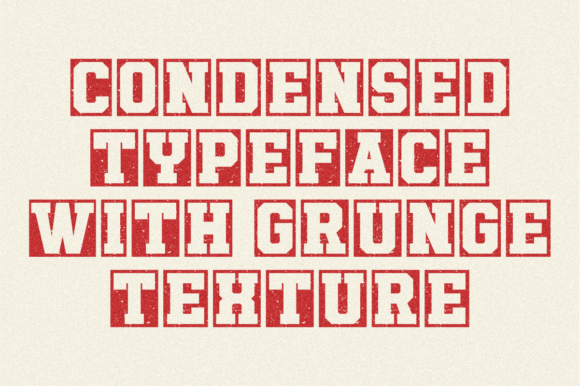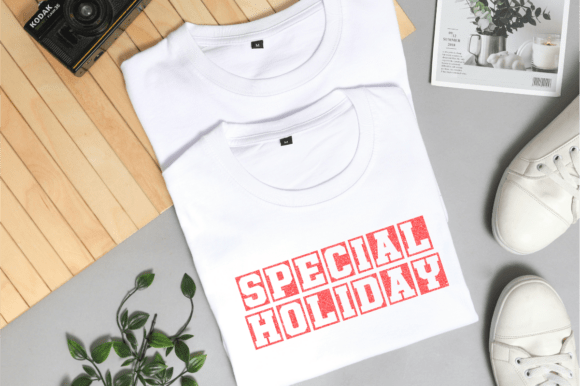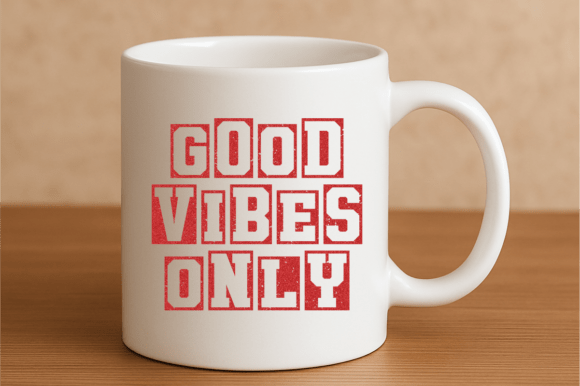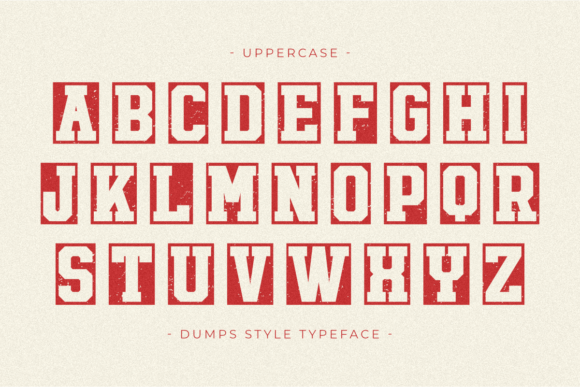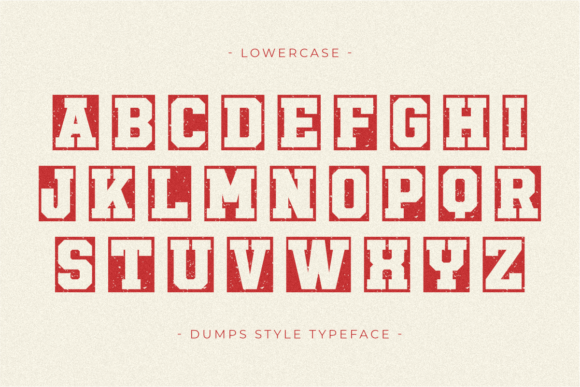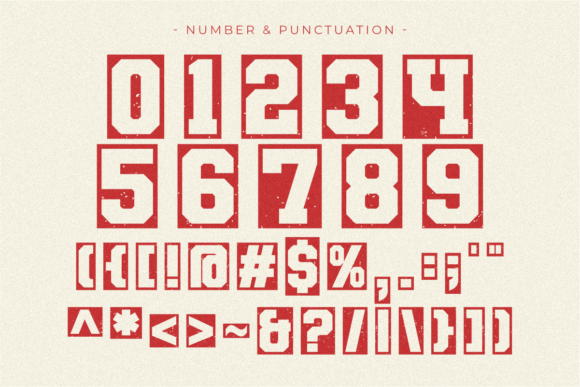
Unleash the Power of Dumps Style Font: A Commanding and Rugged Decorative Slab Serif
In the world of typography, fonts play a crucial role in conveying the tone and personality of a brand or design. For designers and crafters looking to make a bold statement, Dumps Style Font is an exceptional choice. This commanding and rugged decorative slab serif font is specifically designed for maximum visual impact, making it perfect for a variety of applications, from vintage sports branding to high-energy headlines.
The Distinct Characteristics of Dumps Style Font
Dumps Style Font boasts a heavy, blocky all-caps structure that exudes confidence and strength. Its distinct, distressed, and gritty texture adds a layer of depth and authenticity, reminiscent of retro designs from the past. The font’s bold typeface is carefully crafted to deliver an authentic, old-school aesthetic that demands attention and provides a powerful, fearless presence.
Ideal Applications for Dumps Style Font
So, what makes Dumps Style Font so versatile? Its unique characteristics make it an excellent choice for various design projects, including:
- Vintage sports branding: Create team logos, jerseys, and promotional materials that evoke the spirit of classic sports teams.
- Collegiate-style apparel: Design eye-catching clothing and accessories for schools, universities, or sports teams.
- Retro posters: Add a touch of nostalgia to your posters, flyers, or brochures with Dumps Style Font’s retro charm.
- High-energy headlines: Make your headlines pop with Dumps Style Font’s bold, attention-grabbing presence.
- Urban streetwear: Incorporate Dumps Style Font into your streetwear designs for a bold, fearless look.
Why Choose Dumps Style Font?
With so many fonts available, what sets Dumps Style Font apart? Here are a few reasons why designers and crafters love this font:
- Maximum visual impact: Dumps Style Font is designed to grab attention and make a lasting impression.
- Authentic, old-school aesthetic: The font’s distressed texture and bold structure evoke a sense of nostalgia and authenticity.
- Versatility: Use Dumps Style Font for a wide range of design projects, from sports branding to streetwear.
- Ease of use: The font is easy to read, even in large sizes, making it perfect for headlines and titles.
Tips for Using Dumps Style Font Effectively
To get the most out of Dumps Style Font, consider the following tips:
- Use it sparingly: Dumps Style Font is bold and attention-grabbing, so use it sparingly to avoid overwhelming your design.
- Pair it with contrasting fonts: Combine Dumps Style Font with cleaner, more minimalist fonts to create visual interest.
- Experiment with colors: Try pairing Dumps Style Font with bold, bright colors to amplify its impact.
Dumps Style Font is a powerful and versatile decorative slab serif font that’s perfect for designers and crafters looking to make a bold statement. Its commanding and rugged characteristics make it an excellent choice for vintage sports branding, collegiate-style apparel, retro posters, and high-energy headlines. With its authentic, old-school aesthetic and ease of use, Dumps Style Font is sure to become a staple in your design toolkit.